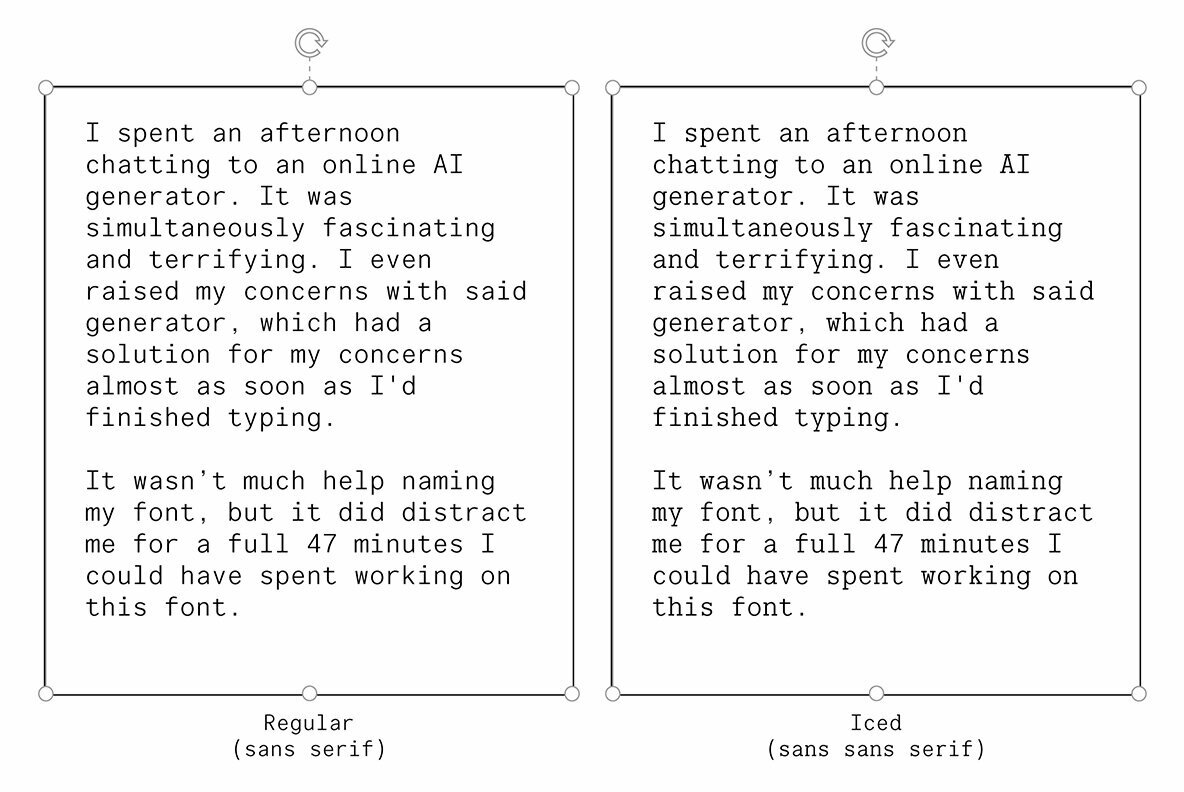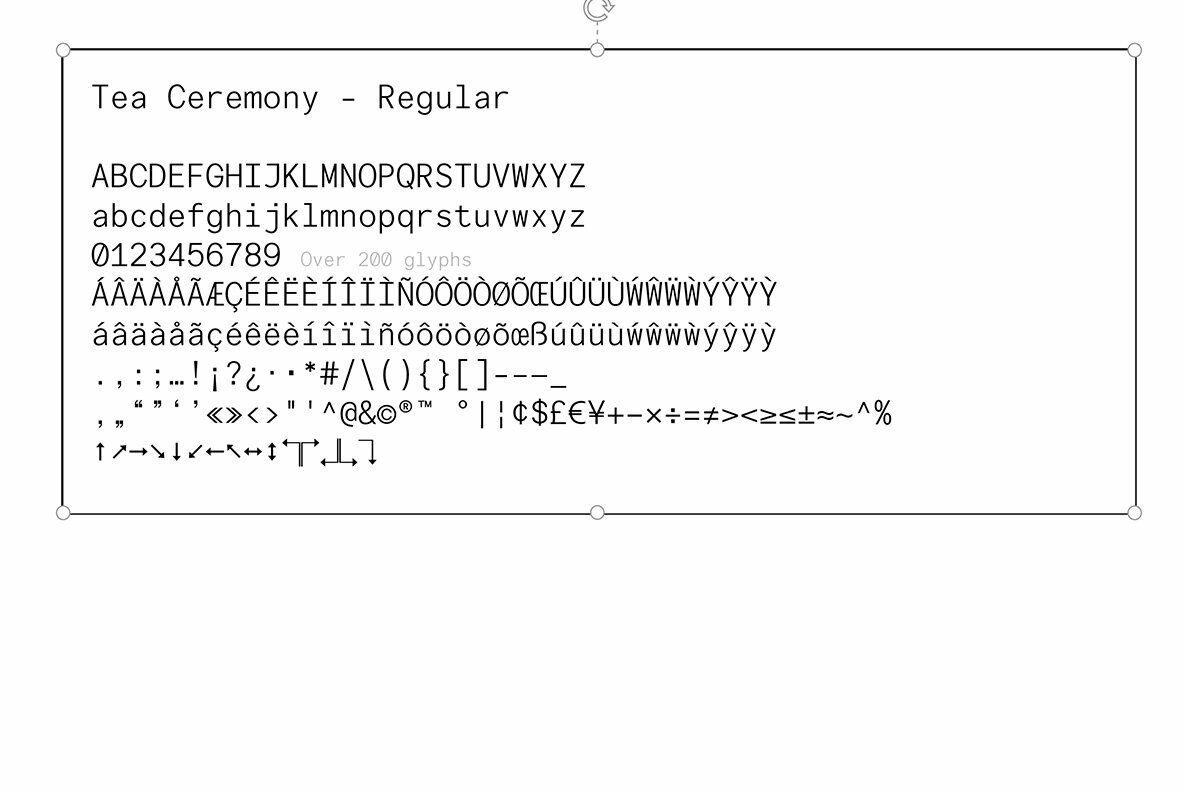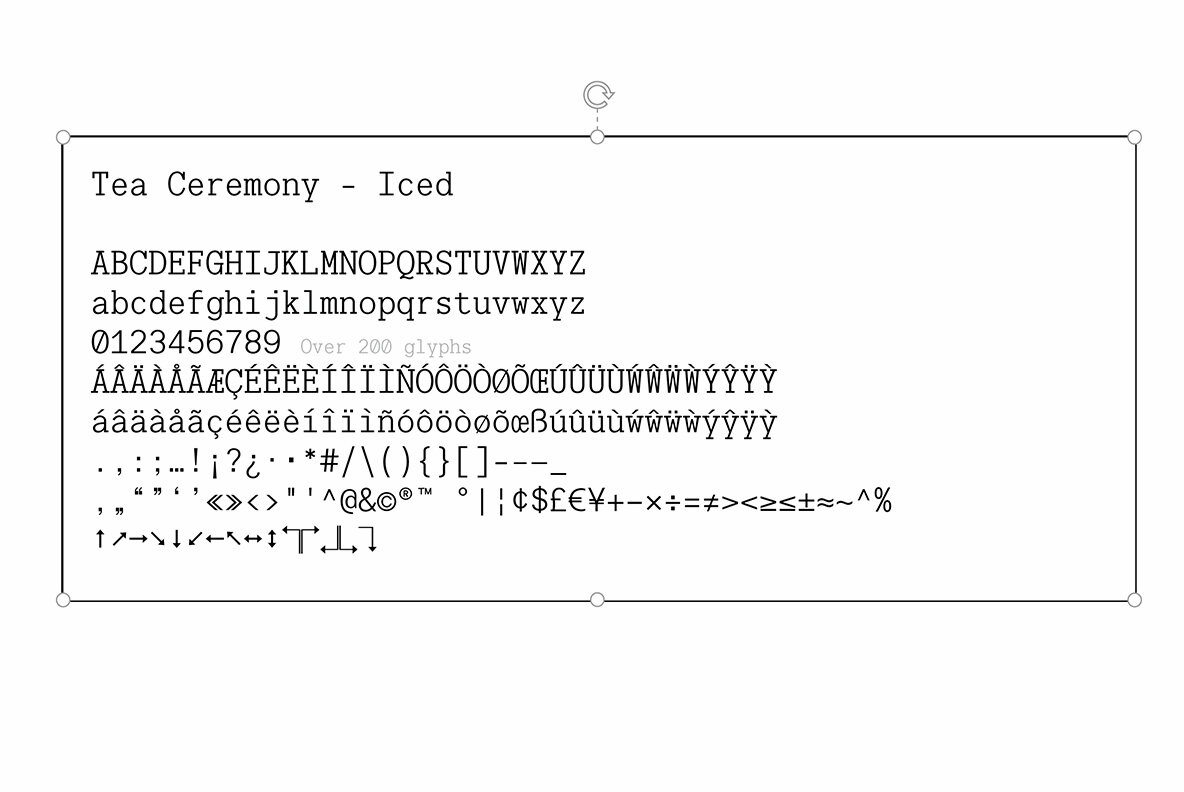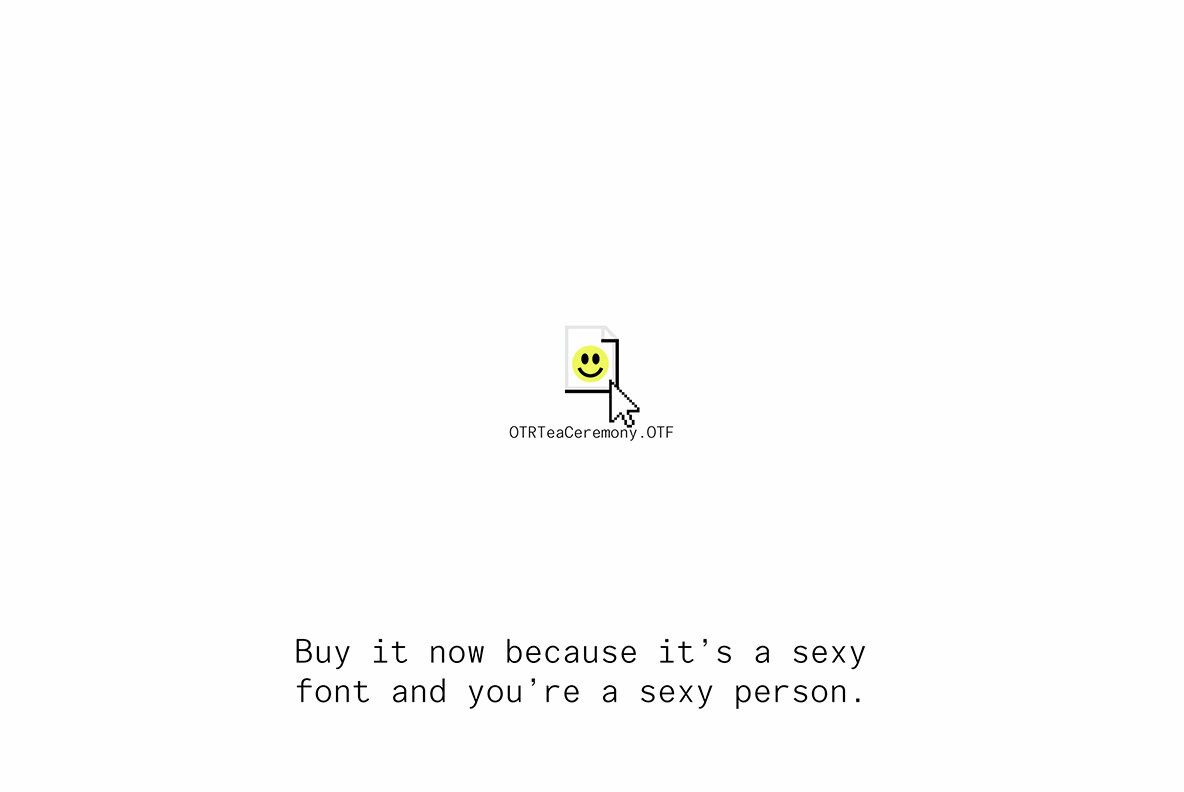
Tea Ceremony Font
Tea Ceremony was crafted with the same care that your local barista takes over your iced matcha latte (I'm assuming your local barista is better than mine) A modern monospace font, Tea Ceremony is perfect for portfolio websites, cafe menus, and anywhere else one might require a clean sexy (slightly edgy) font. This is how I imagine a digital typewriter might work (what do you mean 'that's just a computer?') Designed to be legible at even the tiniest of sizes, Tea Ceremony is versatile and beautiful. Being monospaced, you can swap out individual glyphs without affecting the layout of your text, making Tea Ceremony ideal for websites and email newsletters.